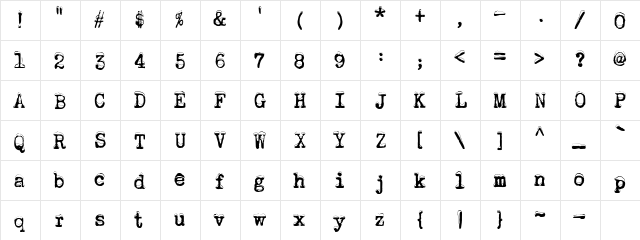
CK Wintertype Regular
Design Context for CK Wintertype Typeface
CK Wintertype takes a measured approach to typography — its balanced proportions and neutral character make it a reliable workhorse for both digital and print work.